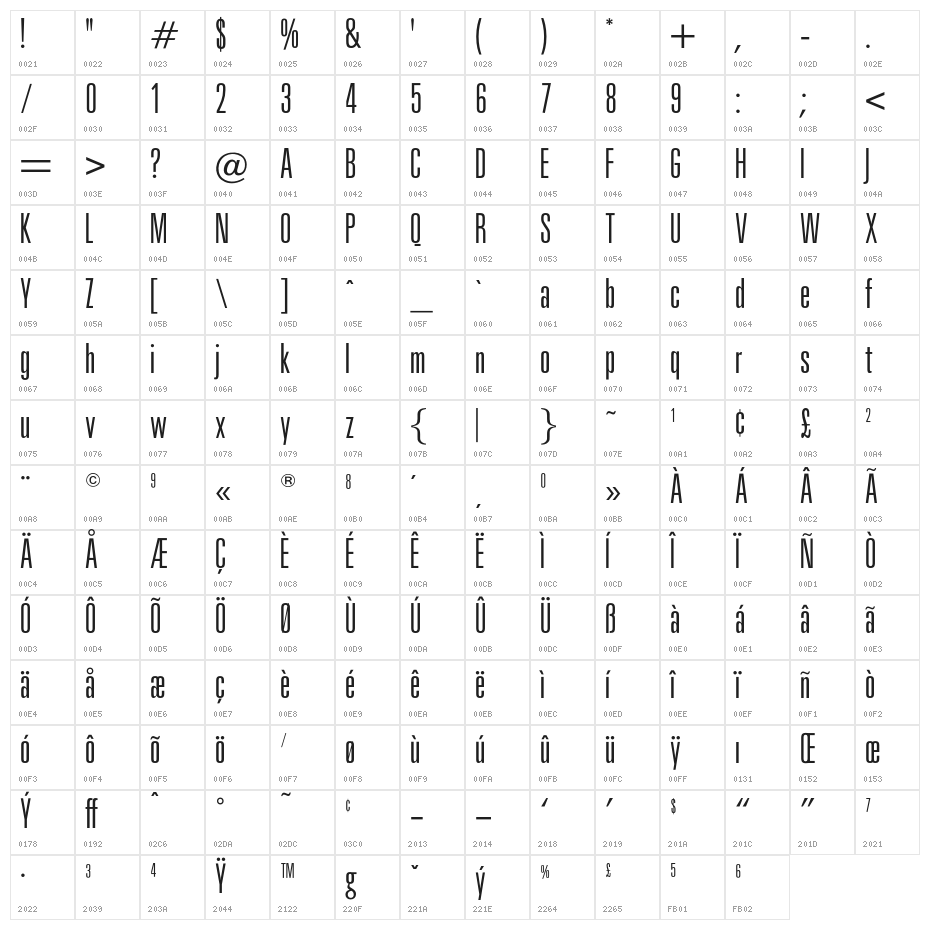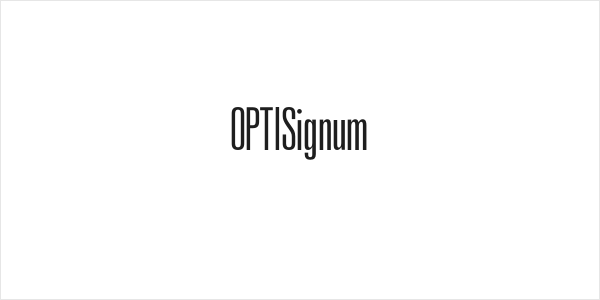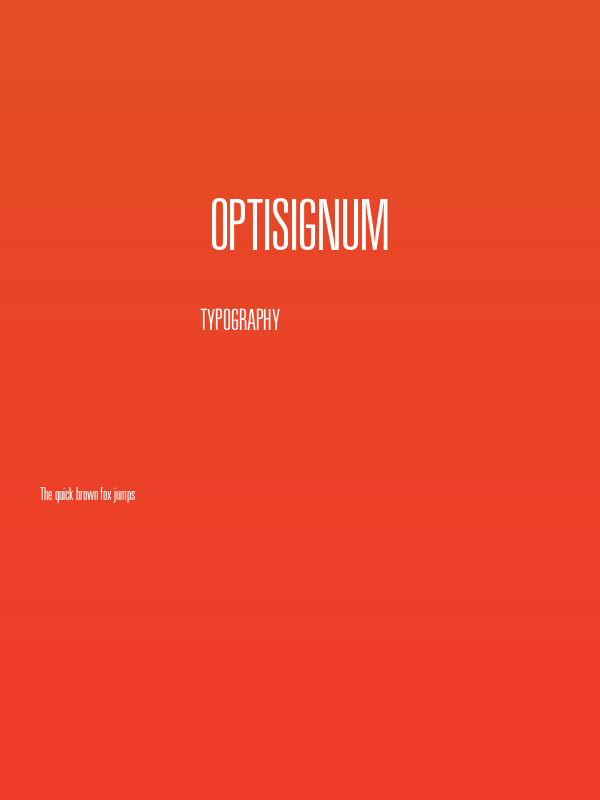
OPTISignum Font
OPTISignum Description
This font features a tall and narrow design, characterized by its condensed letterforms and clean lines. The uppercase letters are particularly elongated, giving a modern and sleek appearance. The lowercase letters maintain a consistent style, complementing the uppercase with their uniform height and minimalistic design. The numerals are similarly narrow, ensuring a cohesive look across all characters. Special characters are included, maintaining the same stylistic approach. The overall impression is one of elegance and sophistication, suitable for contemporary design projects.
| Proposed Projects | Ideal for branding, advertising, and editorial design where a modern and sophisticated look is desired. |